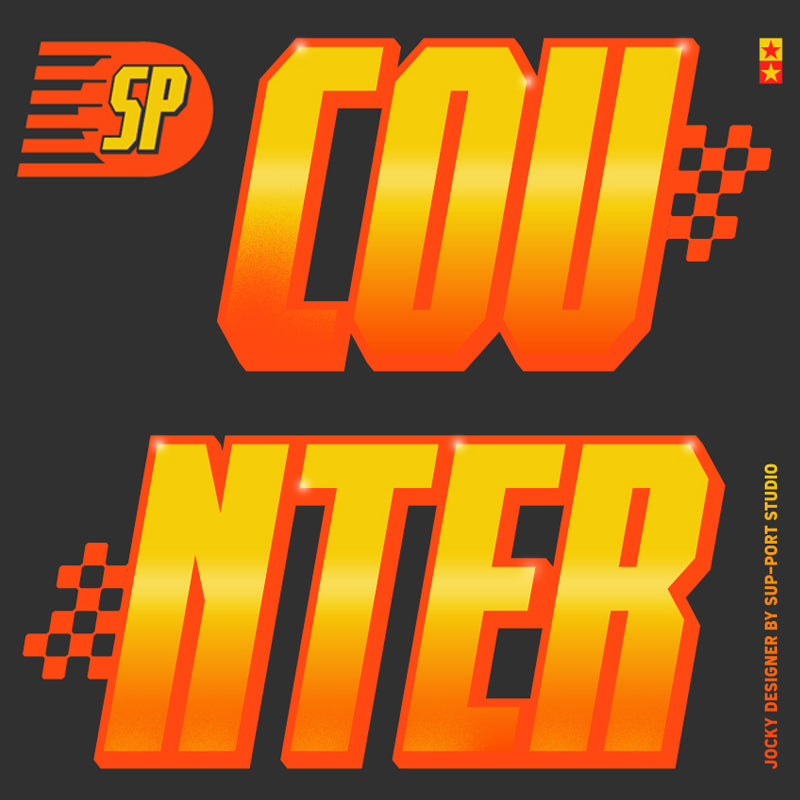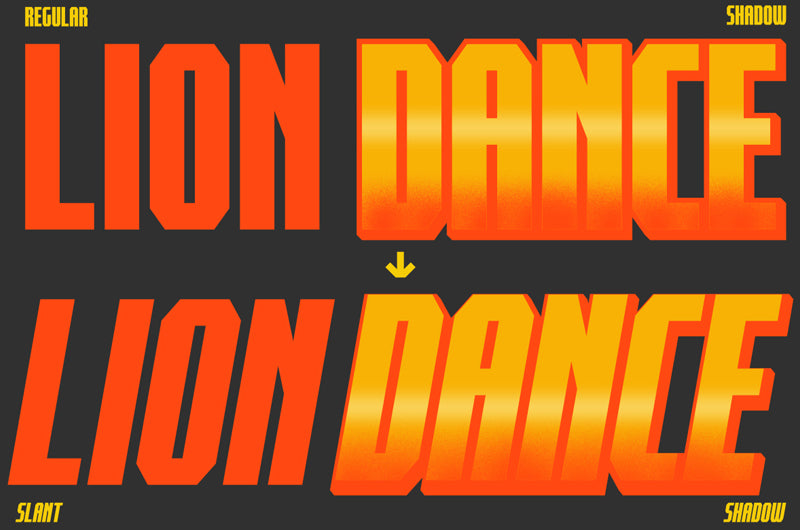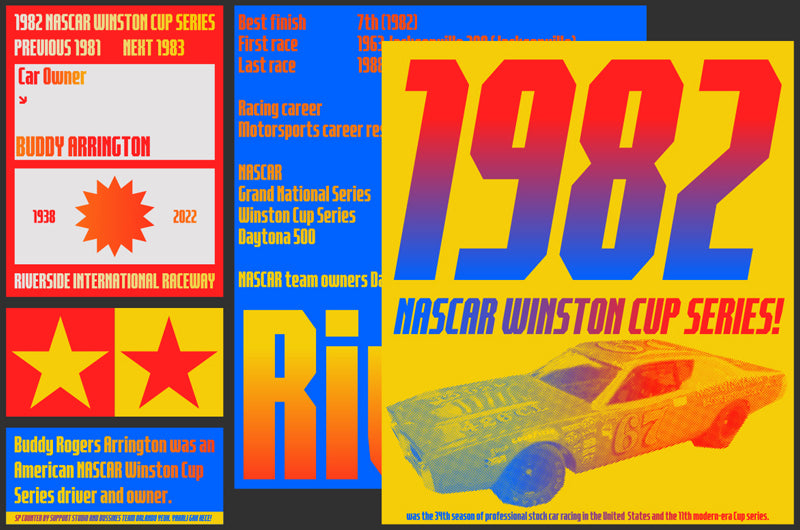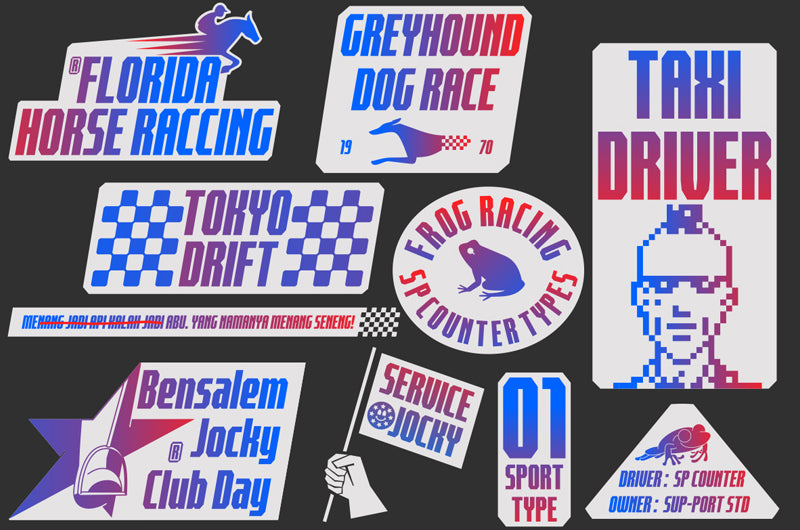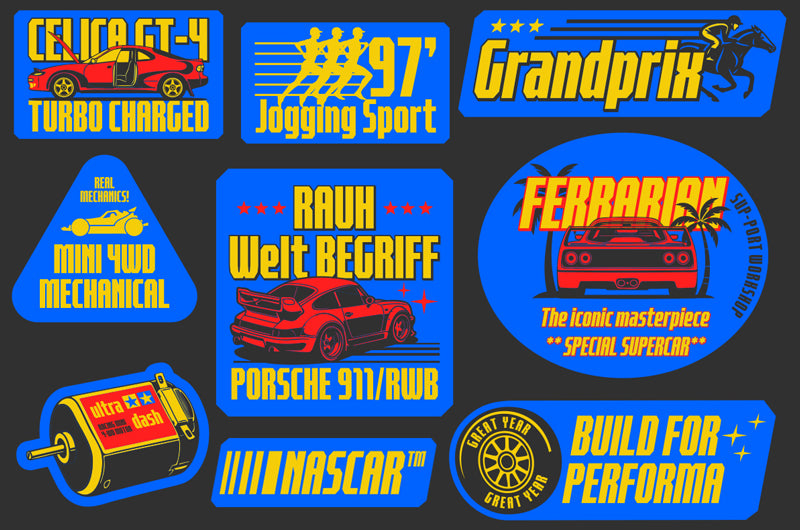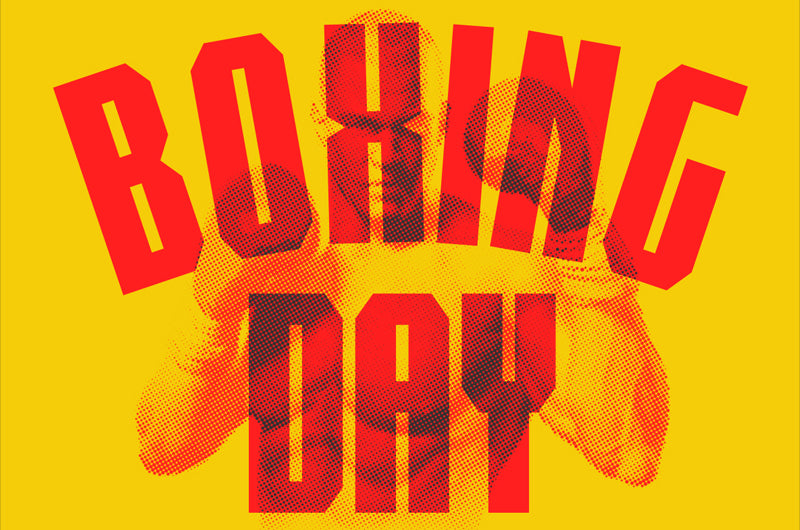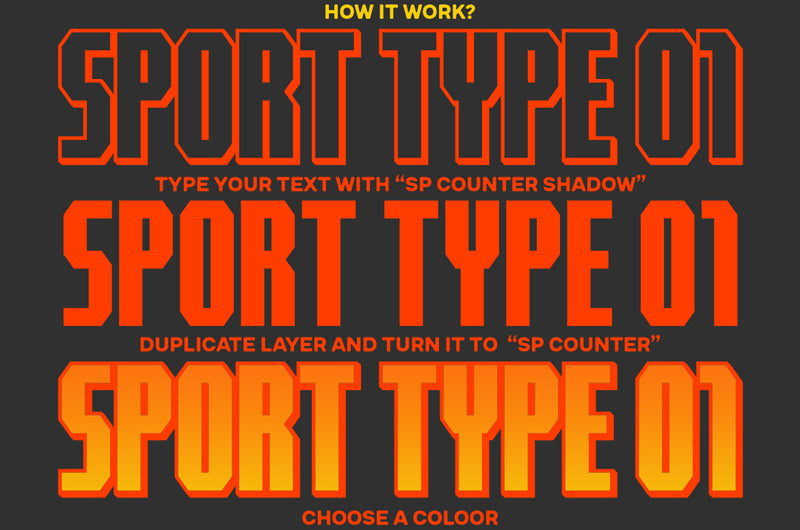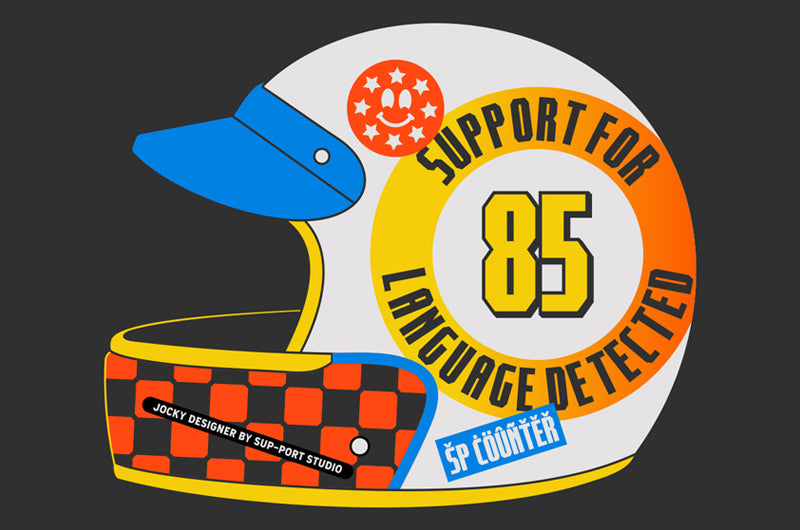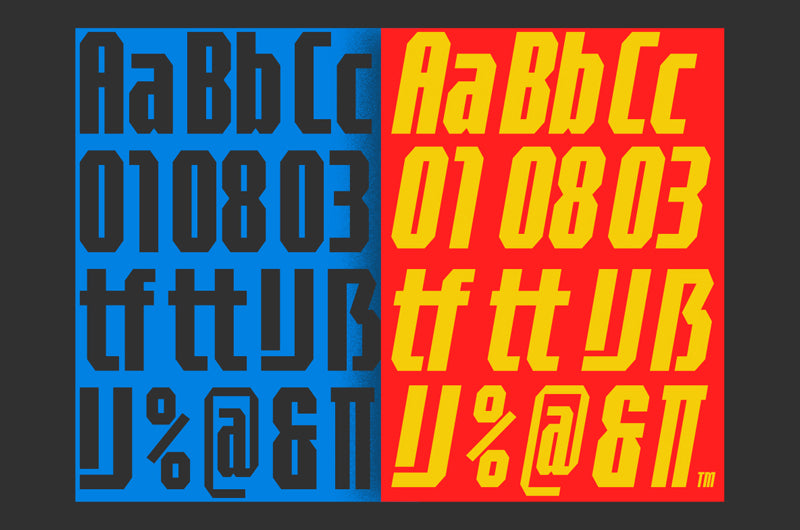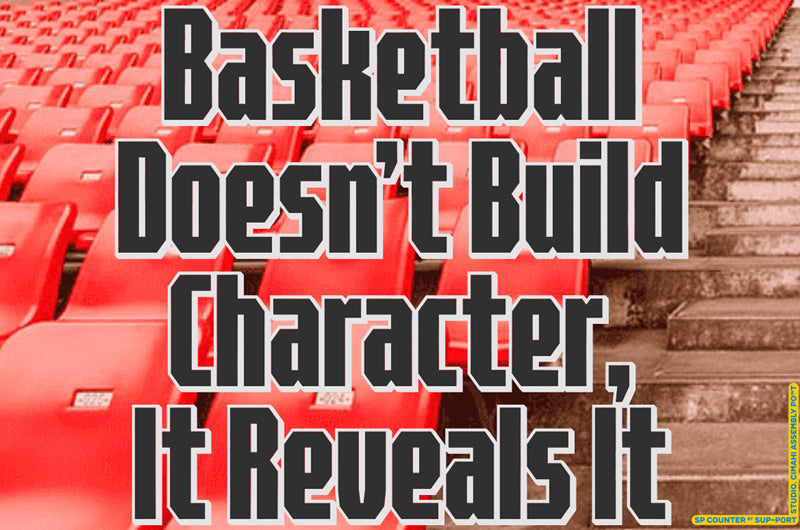
Sp Counter Shadow Fonts
Sp Counter Shadow Fonts is a high-impact display typeface featuring ultra-bold proportions, aggressive cut angles, and a compact vertical rhythm. It includes OTF and TTF formats (Regular, Slant, Shadow, Outline), as well as WOFF/WOFF2 for web usage, and offers a mechanical consistency with a retro-tech aesthetic suitable for large headline applications.
Sup-Port Studio